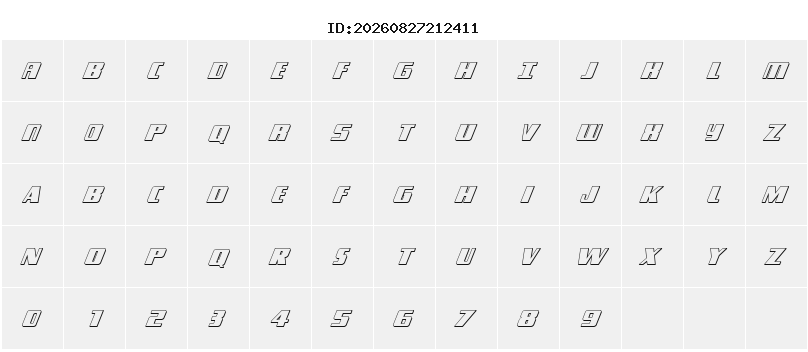
Typhoon 3D Italic Preview
• Font Name: Typhoon 3D Italic
• Full Font Name: Typhoon 3D Italic
About Typhoon 3D Italic.ttf
Typhoon 3D Italic.ttf is a modern, elegant sans-serif font designed for ultimate readability and visual harmony. Perfect for branding, headlines, web design, and print materials.